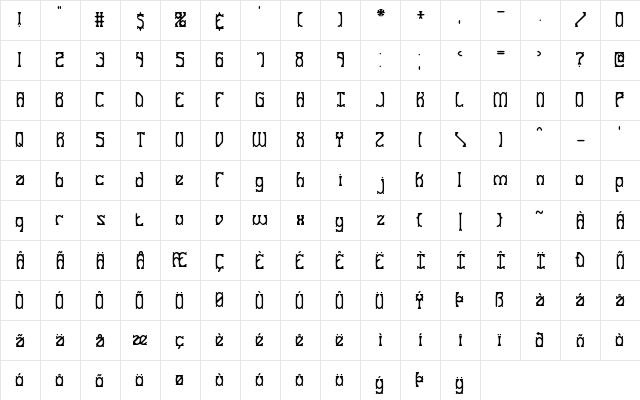
Goose Bumps BRK Normal
| Foundry | ƎIGMA FONTS |
| Designer | ƎIGMA FONTS - Brian Kent |
Design Context for Goose Bumps BRK Typeface
Goose Bumps BRK is a composed and adaptable typeface that performs quietly and consistently across a wide range of design contexts.